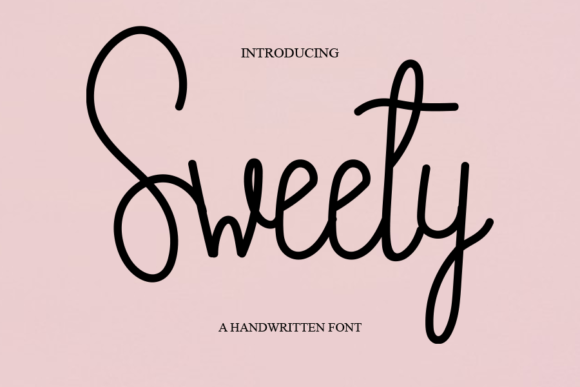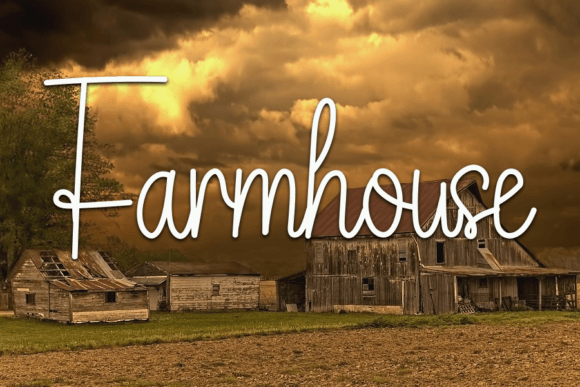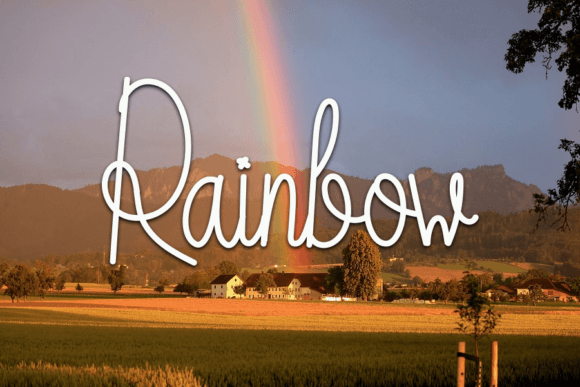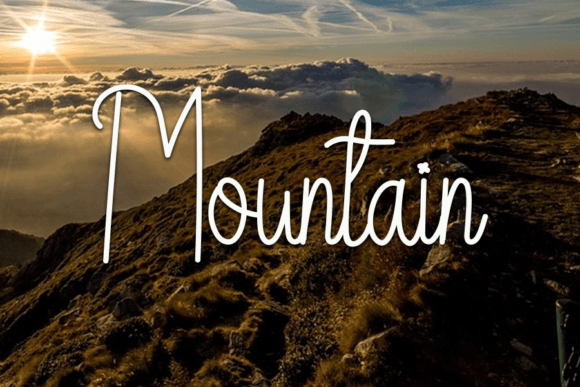
About Sweety Font
Sweety Font is a warm and simple handwritten typeface created with friendliness in mind. Its soft strokes and natural flow offer a welcoming look that suits a wide variety of design applications. Whether you’re aiming for a casual tone or a more personal feel, Sweety Font fits right in.
Crafted for ease and versatility, this font adapts beautifully to both print and digital mediums. It’s the ideal companion for designers, crafters, and creatives who want a go-to handwritten font that feels approachable and timeless.
Ideal Uses for Sweety Font
Use SweetyFont to bring personality and charm to your creative projects:
💌 Greeting Cards & Invitations – Add a heartfelt tone to wedding invites, thank-you cards, or birthday greetings
🖍 Craft & DIY Projects – Works great with Cricut, Silhouette, and handmade designs
🛒 Product Labels & Branding – A friendly font for small business packaging or logo concepts
🖥 Digital Media – Suitable for blogs, social media posts, banners, and email graphics
✍️ Stationery & Prints – Use it for quotes, planners, tags, or wall art
✅ Handwritten Look – Clean and neat strokes that maintain a personal, handwritten charm
🔡 Readable & Approachable – Maintains clarity at different sizes
Whether you’re creating social media graphics, designing an event invitation, or crafting something for personal fun, SweetyFont is a charming, easy-to-use typeface that delivers heart and friendliness.